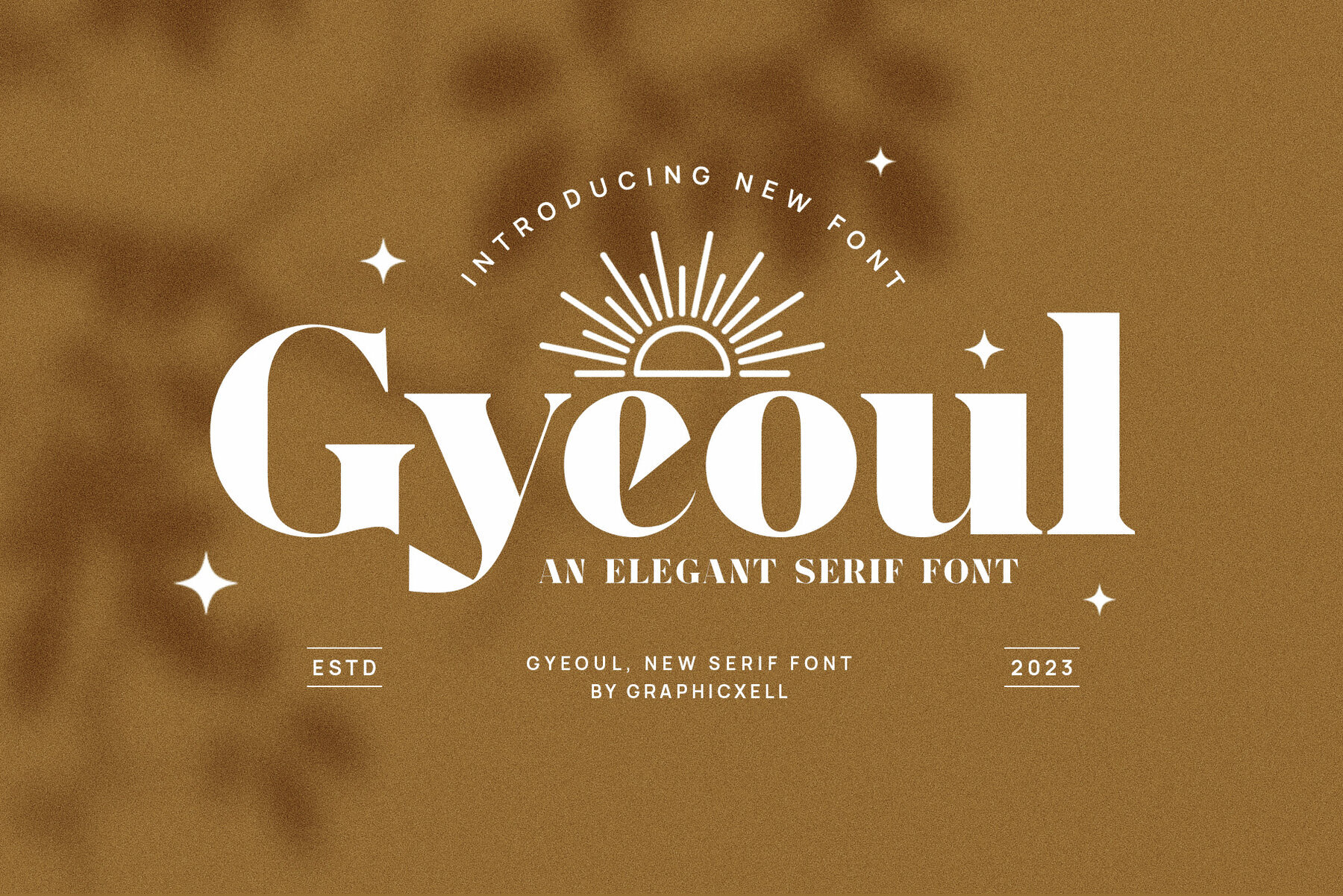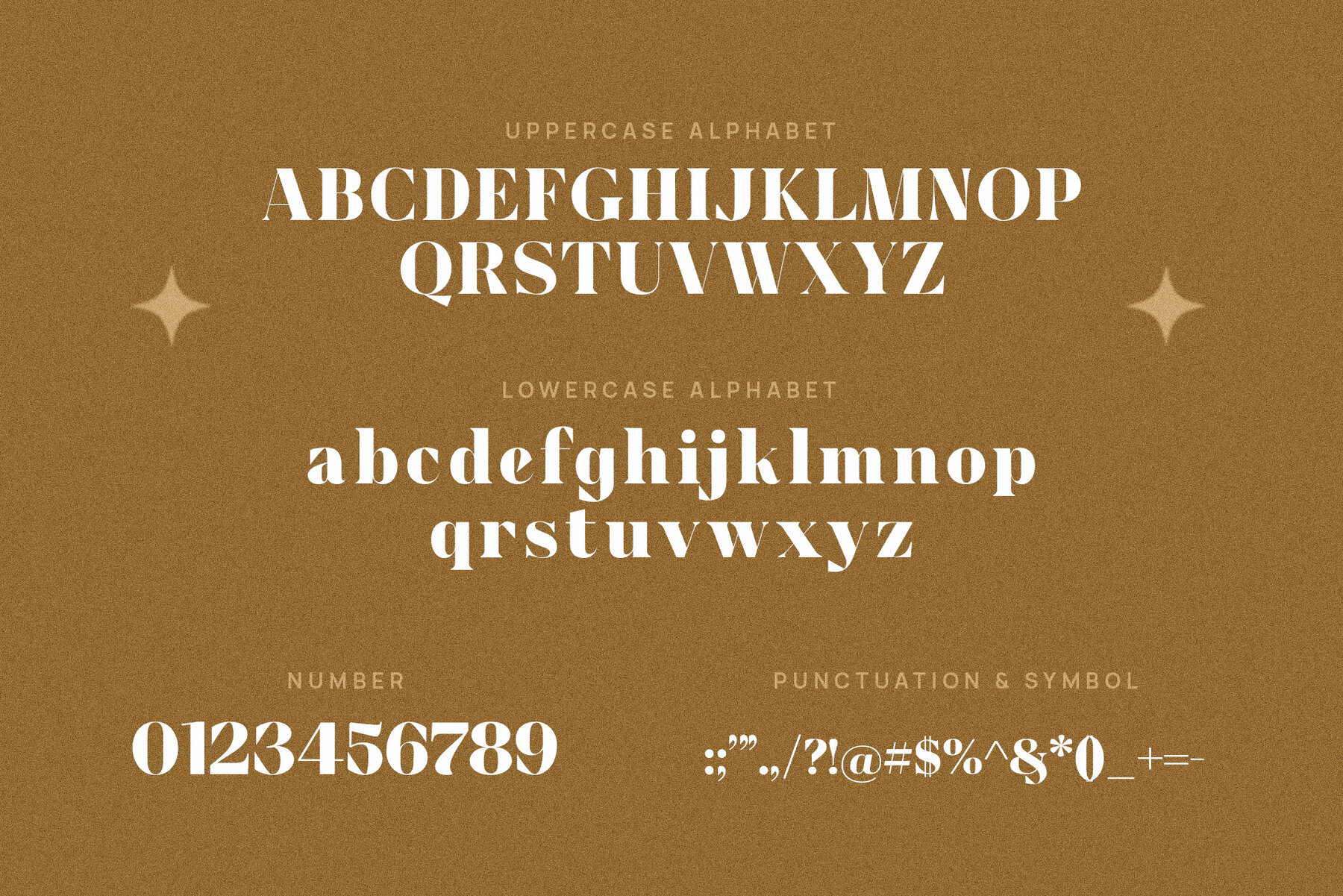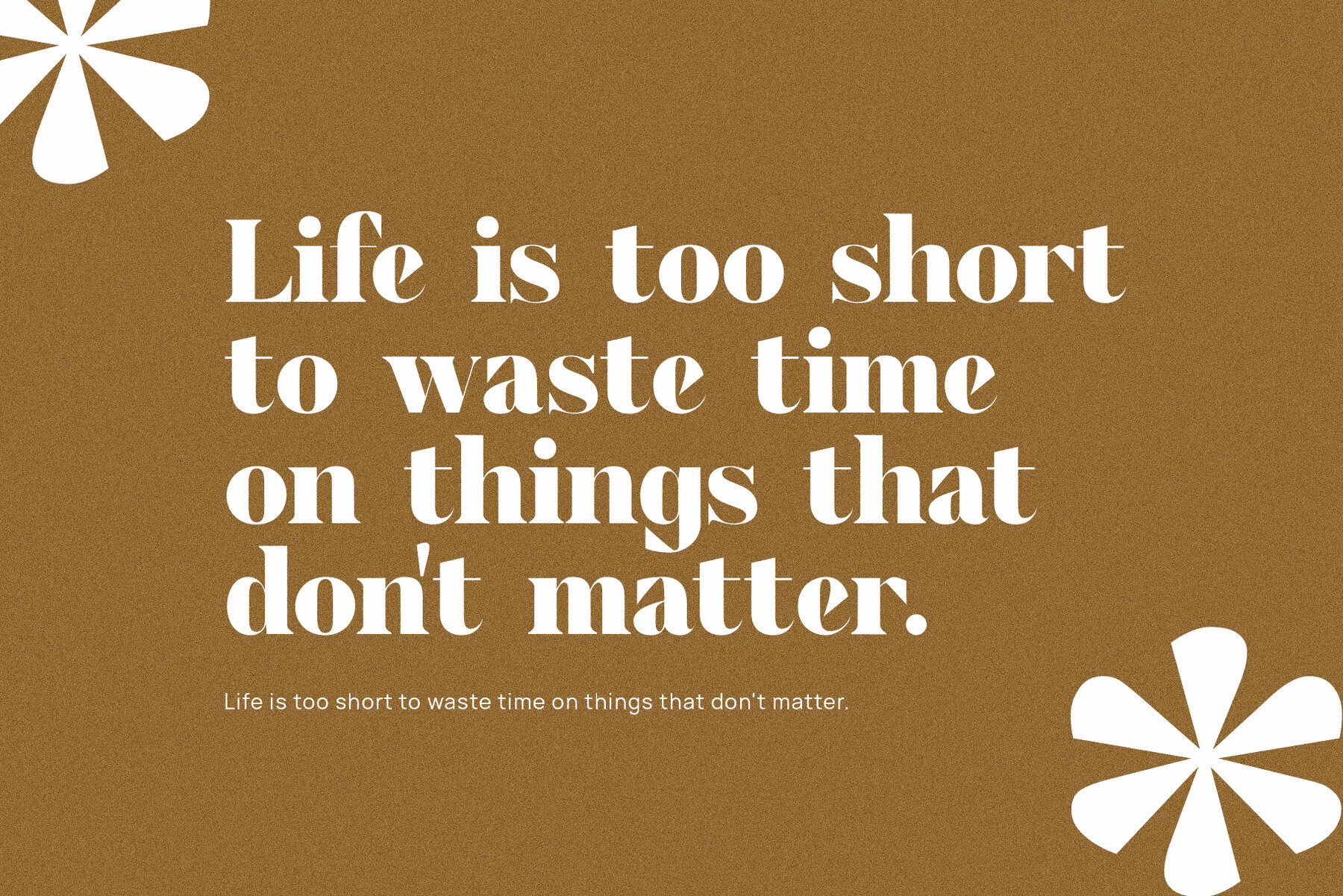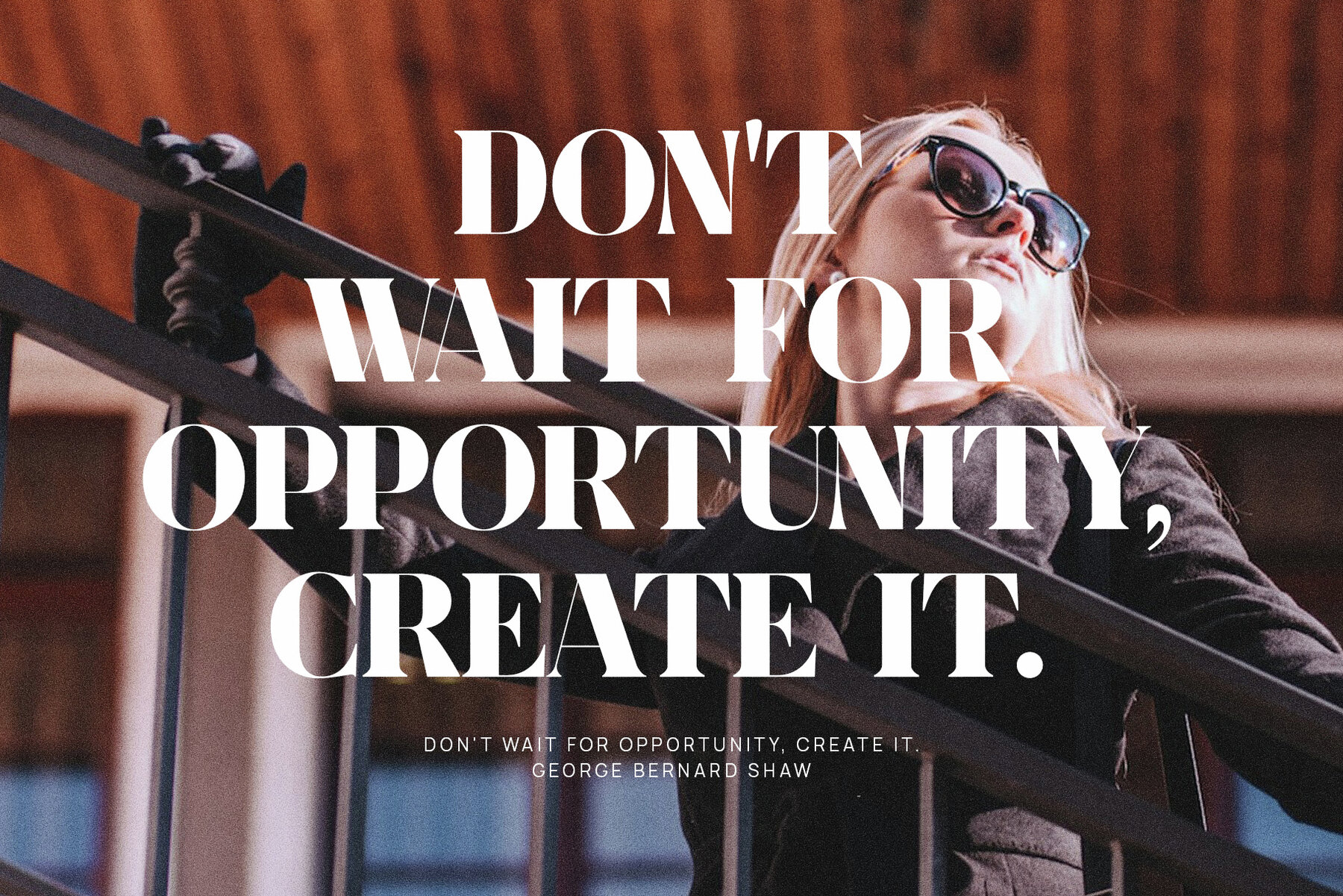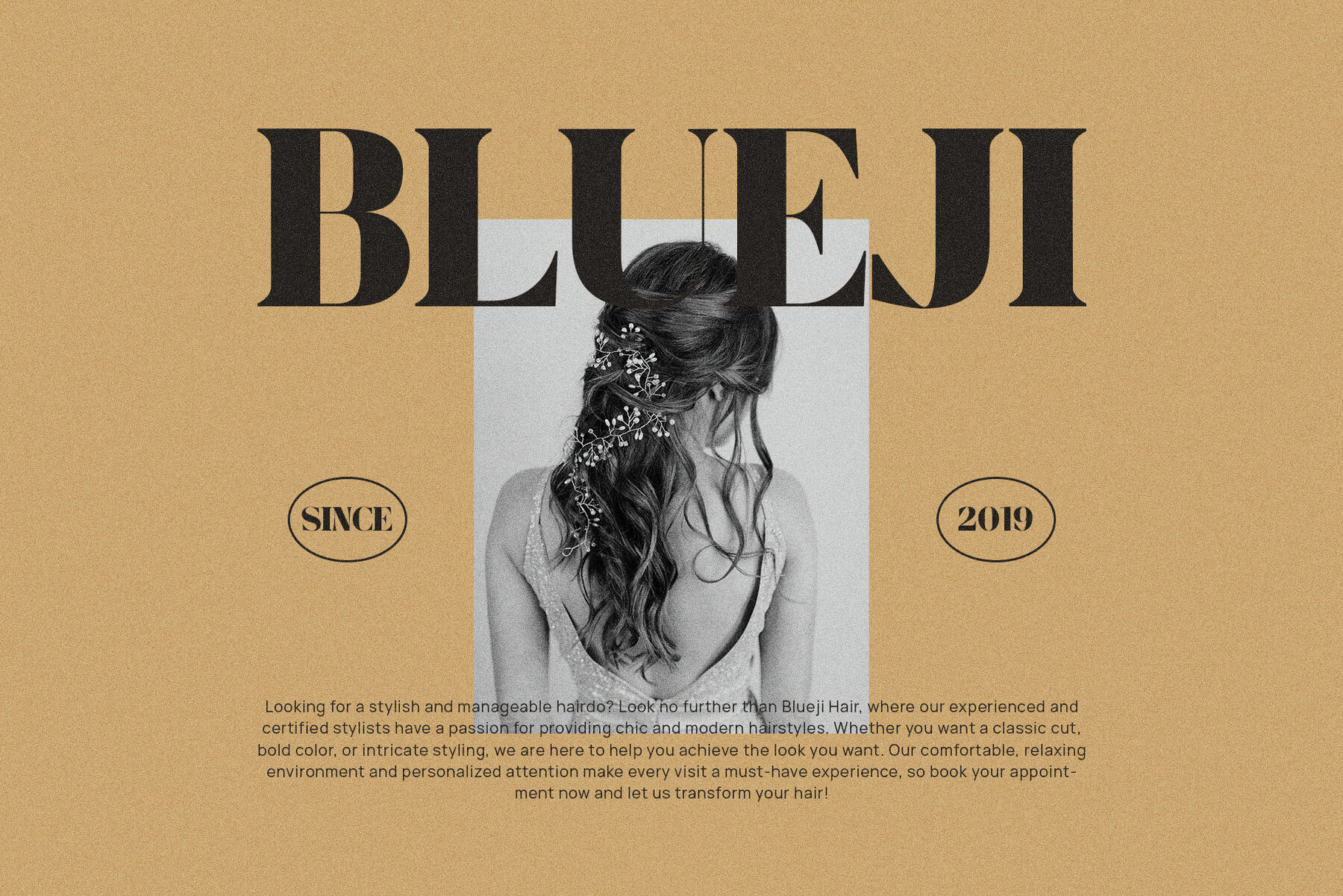
Gyeoul Font
Gyeoul Regular
Gyeoul is a unique and very elegant font for branding and logo designs. Elegant serif typeface combined with a classy and modern style. This type of font is very suitable for your various needs such as branding projects, logos, wedding designs, social media posts, advertisements, product packaging, product designs, labels, photography, watermarks, invitations, stationery, and any project, created with high level of readability you will not be disappointed if you buy this font!